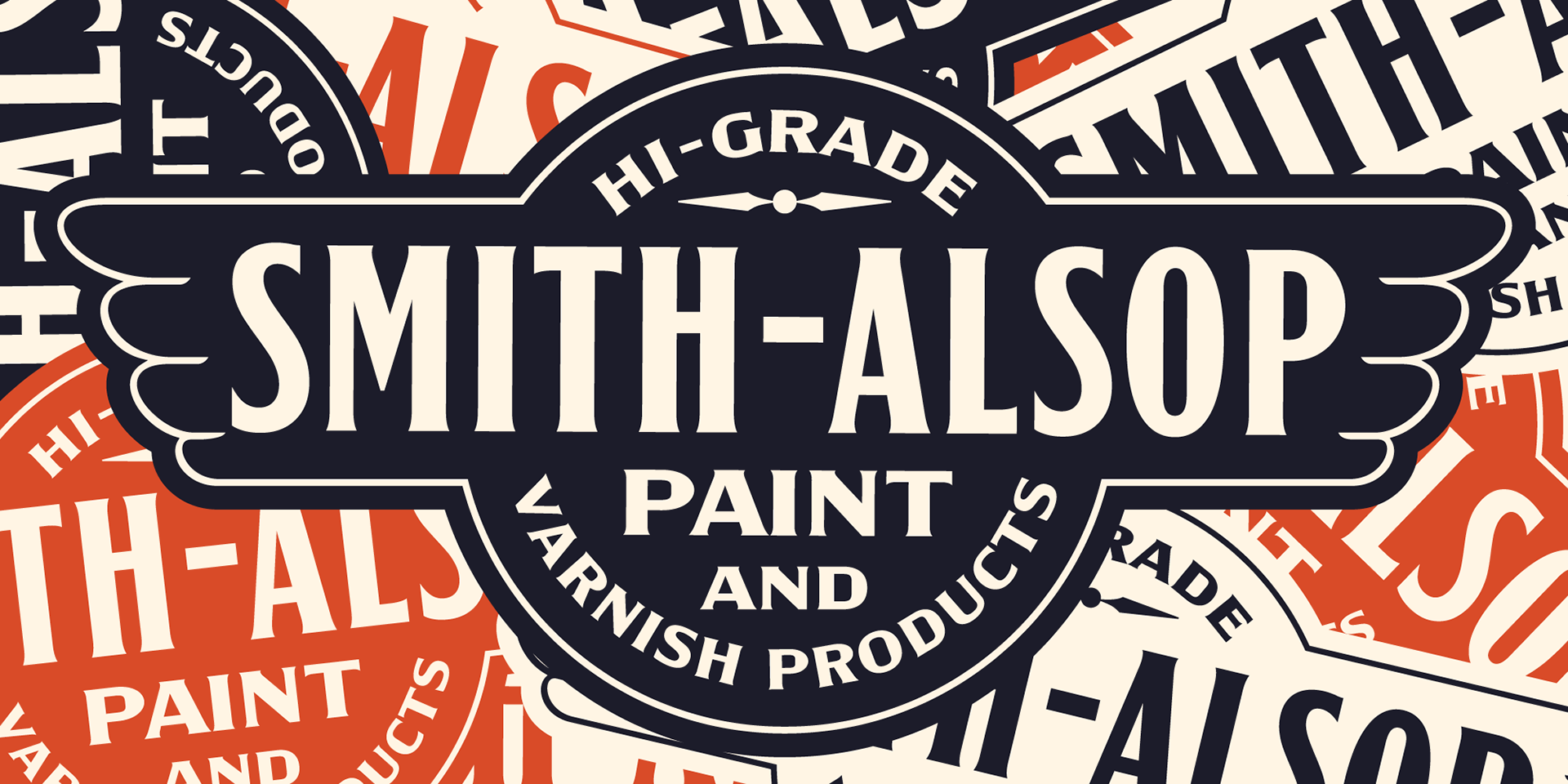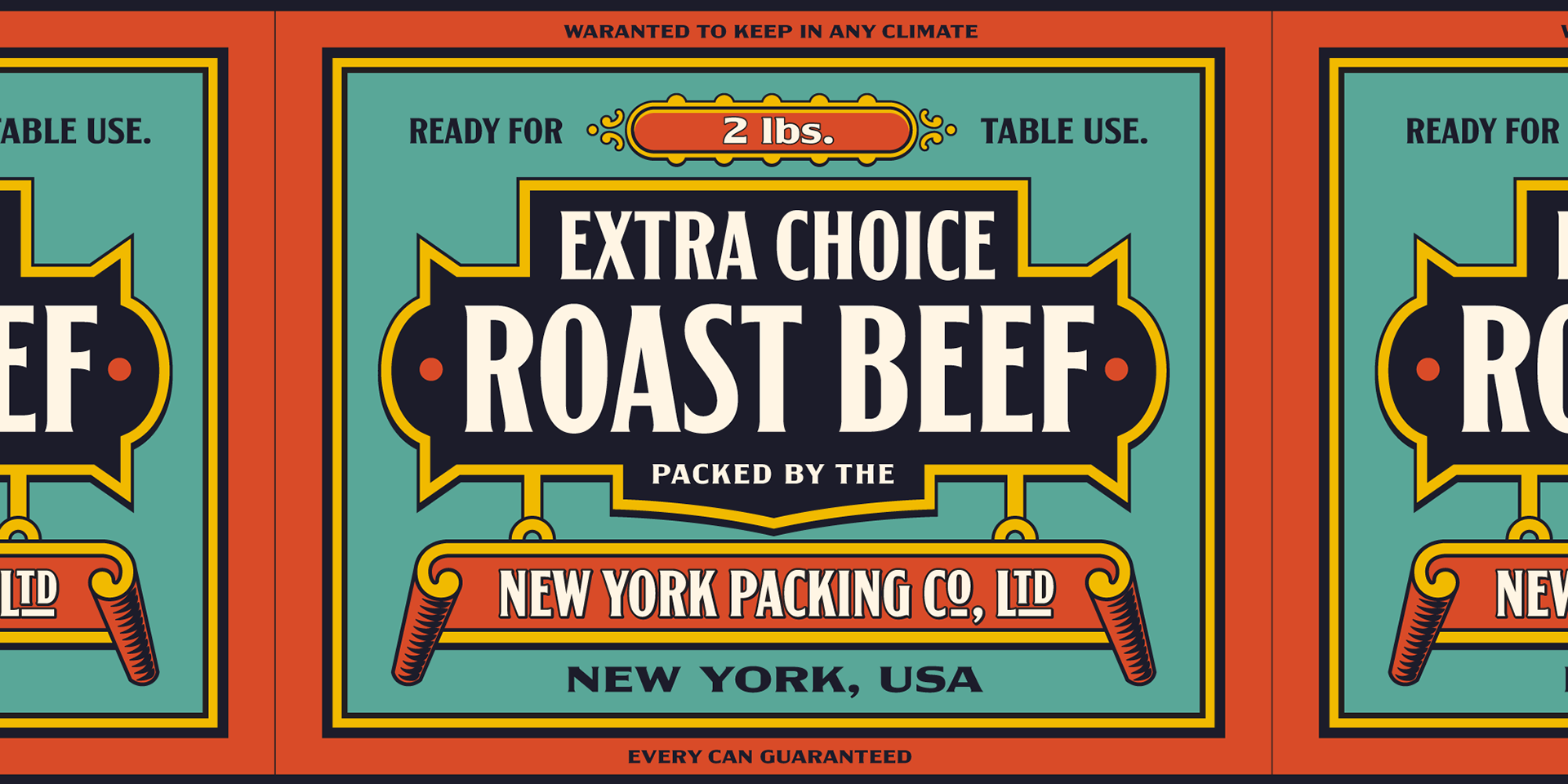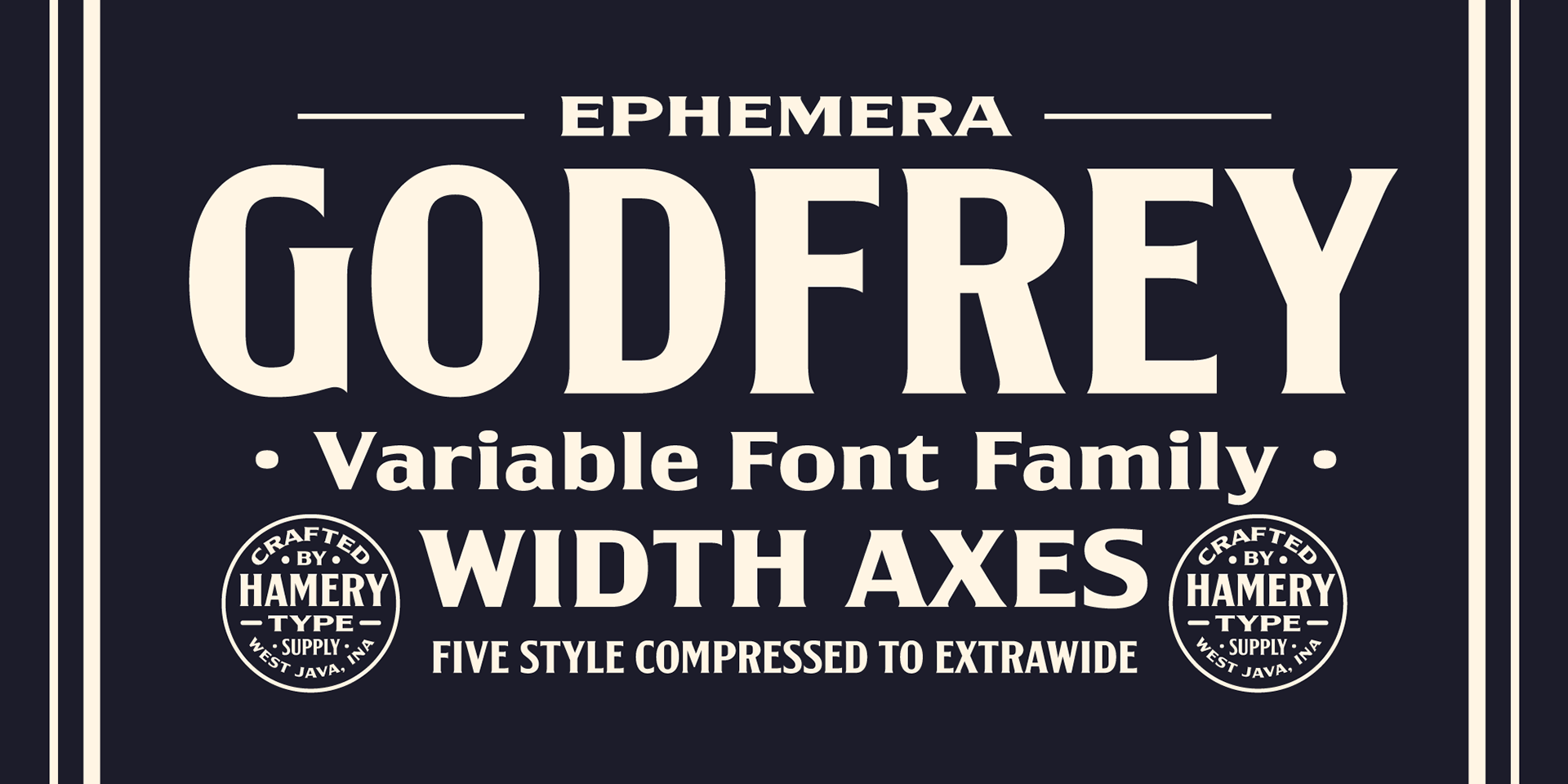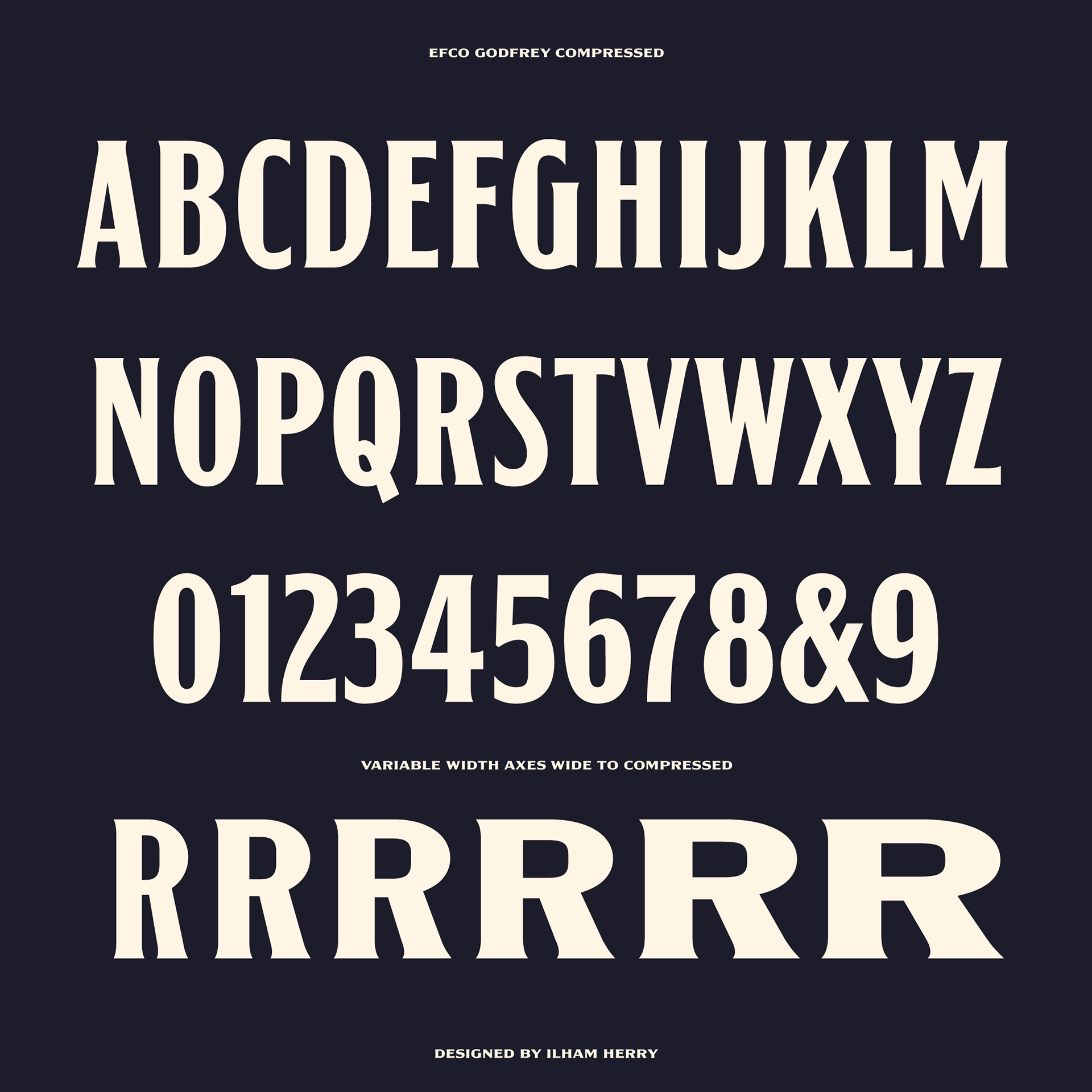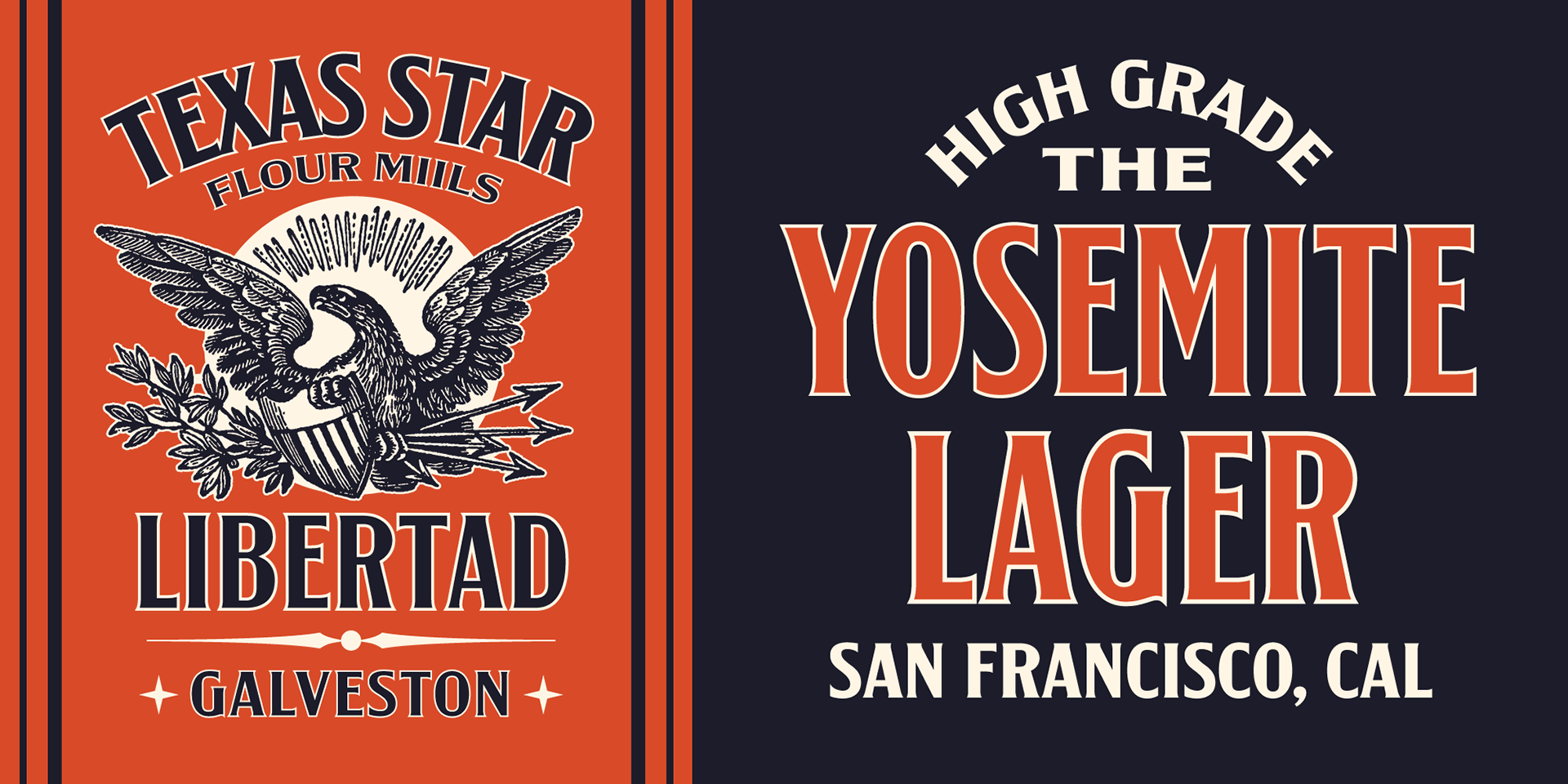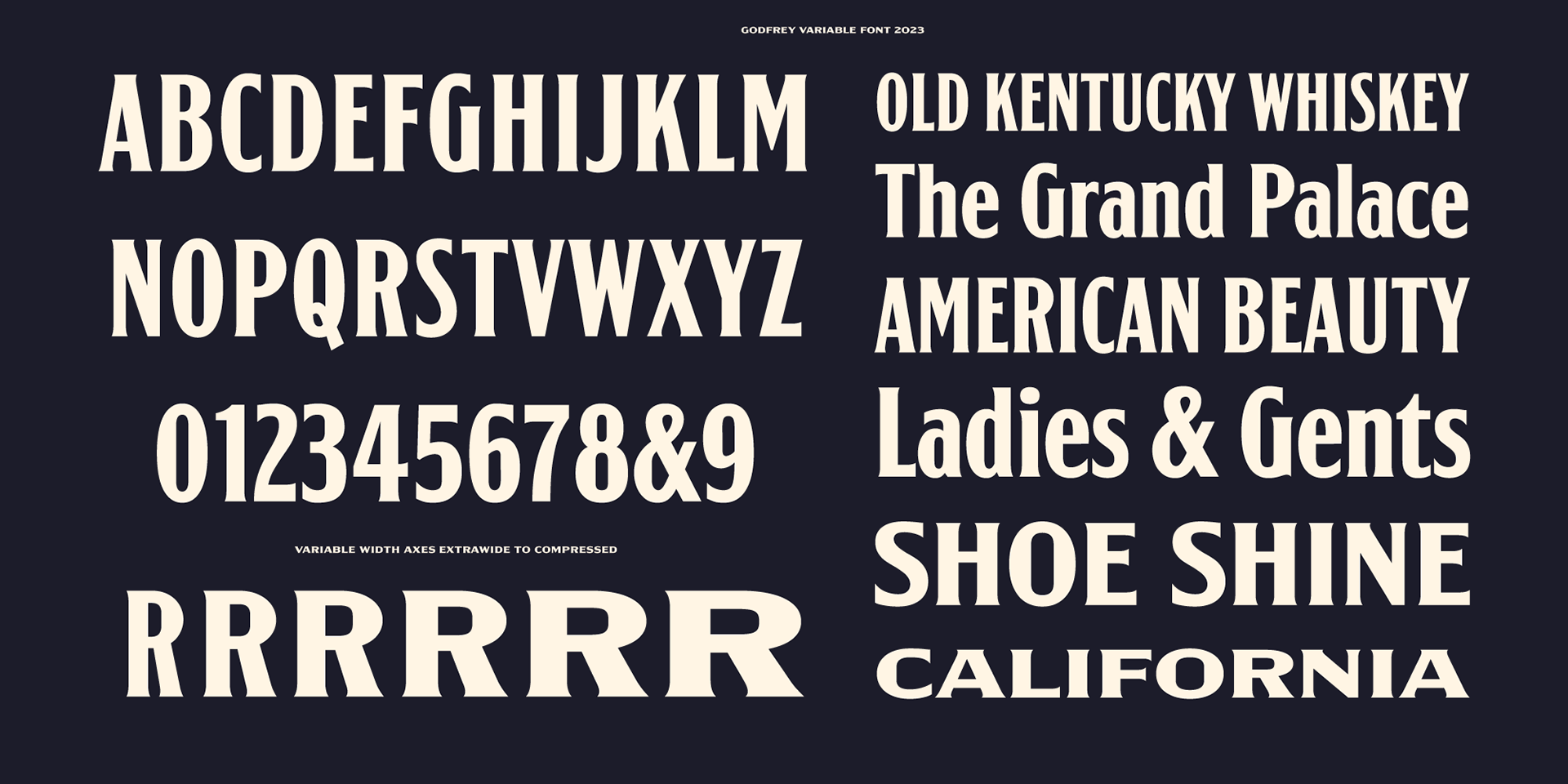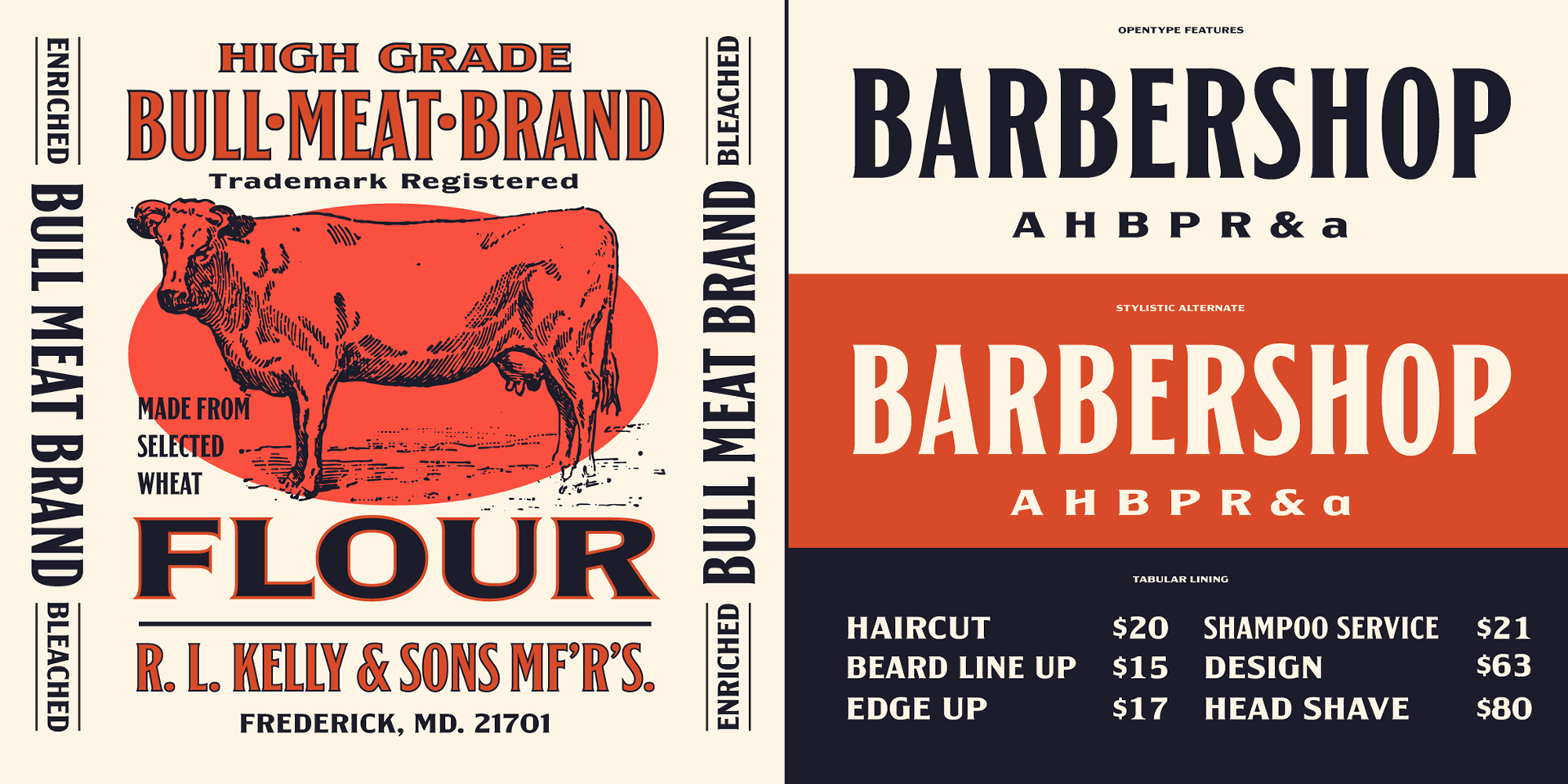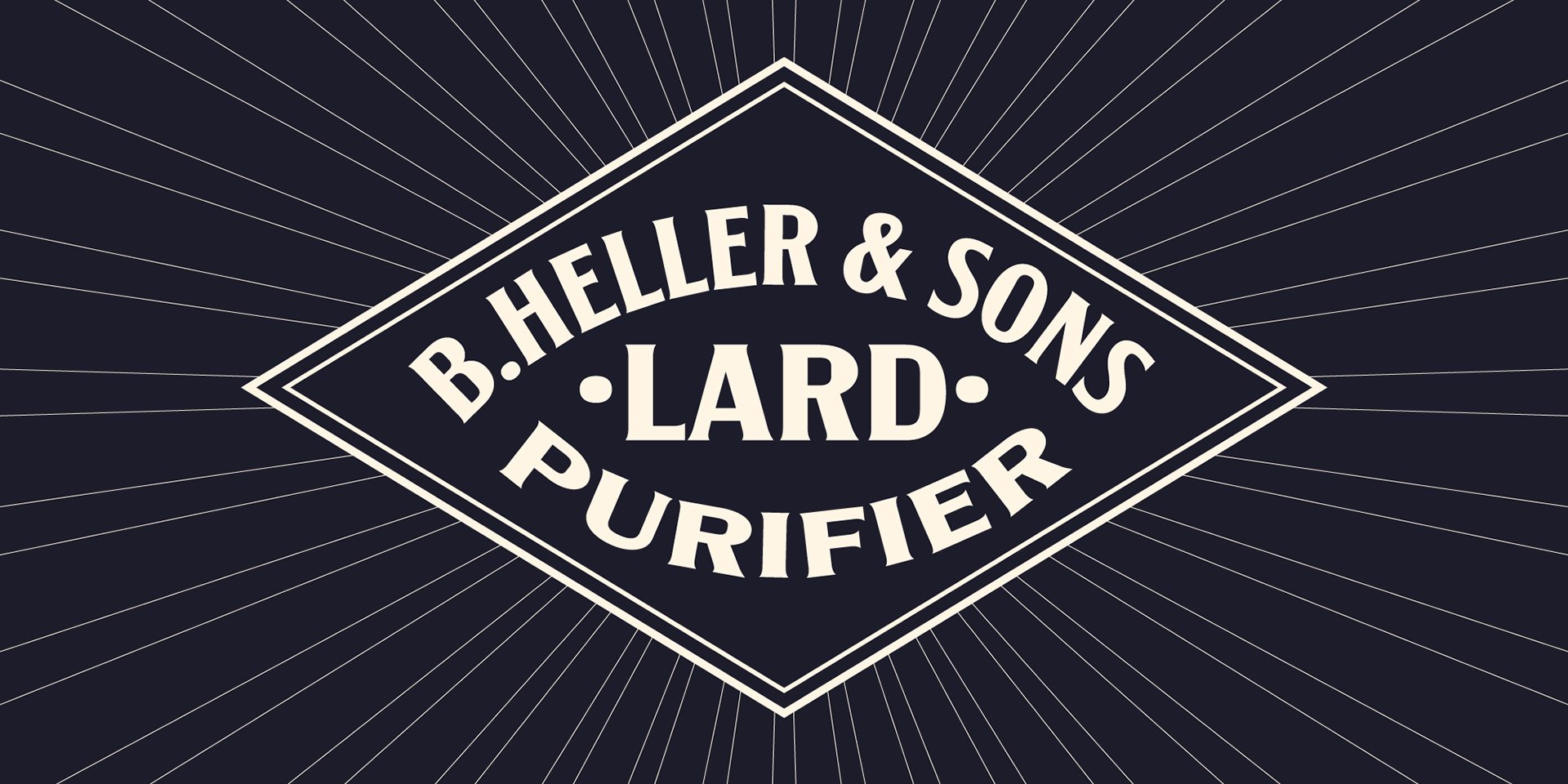
Inspired by vintage labels designed with various typeface styles, Godfrey comes with 6 styles and variable fonts, for ease of pairing on designing. Opentype features such as stylistic alternate, tabular lining, and ligature in CO. and LTD.
Godfrey was created for display needs, perfect for headlines, posters, signage, t-shirts, panels, logos, branding, etc.